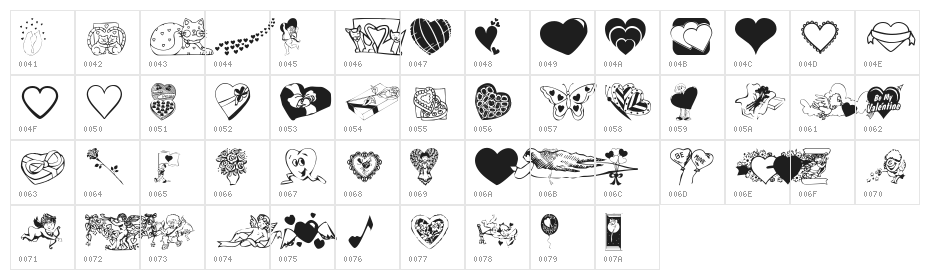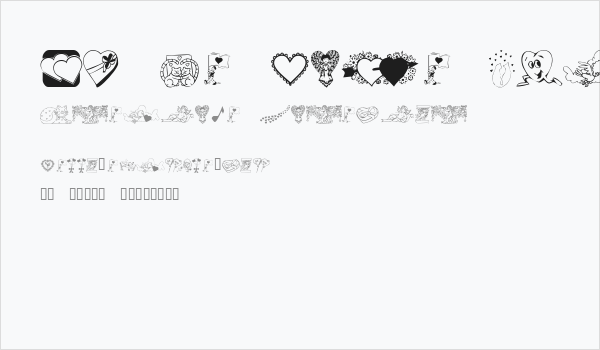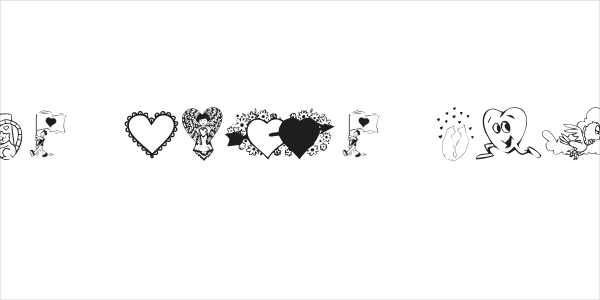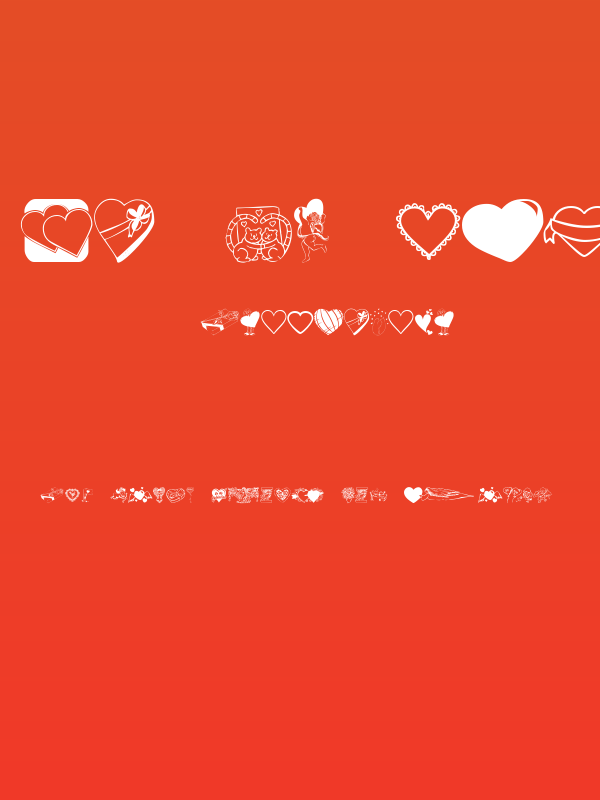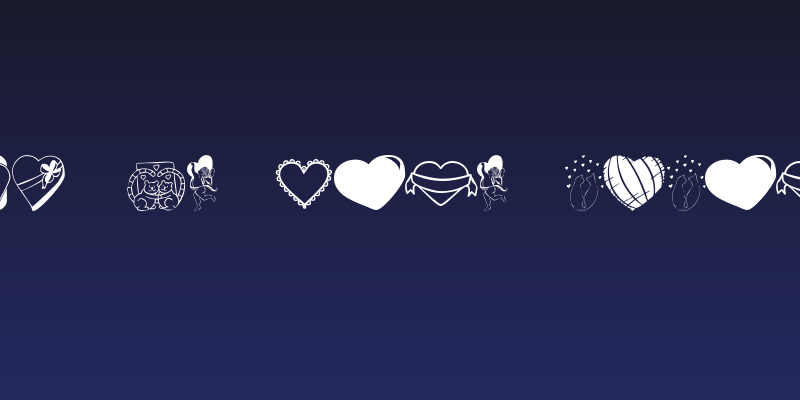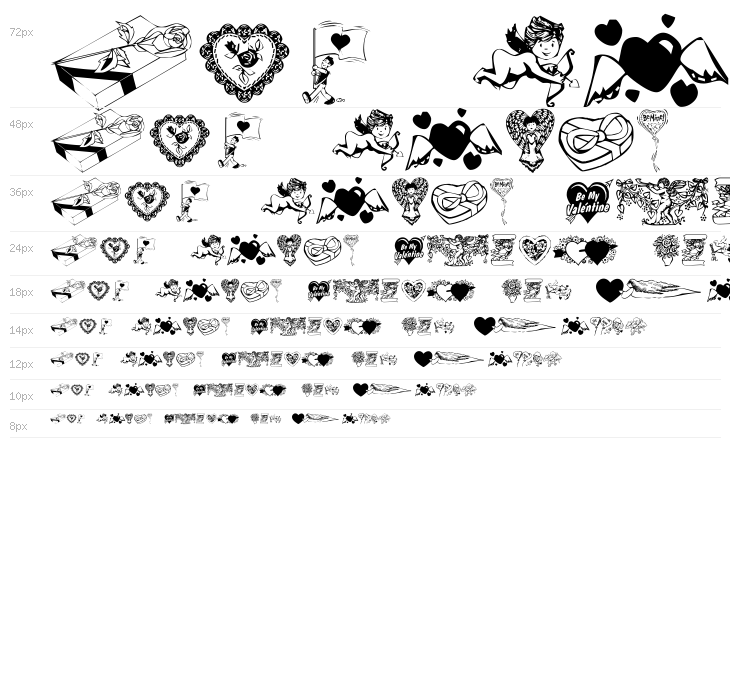
KR Be Mine Again Font
KR Be Mine Again Description
This is a decorative font featuring a variety of romantic and whimsical illustrations. Each character is represented by a unique design, including hearts, cherubs, and other love-themed imagery. The designs are intricate and detailed, making them suitable for creative and artistic projects. The font captures a playful and affectionate mood, perfect for Valentine's Day or romantic occasions. The characters are not traditional letters or numbers but rather a collection of themed graphics that convey a sense of love and joy.